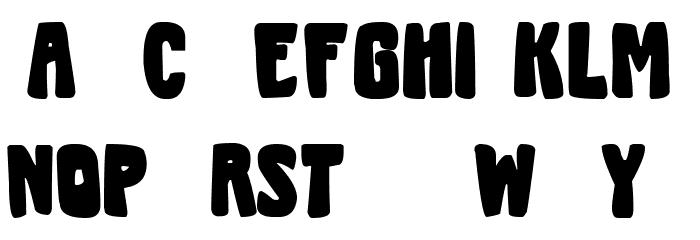
Smallfoot Font
This font features a playful and bold design with rounded edges and a slightly irregular shape, giving it a whimsical and friendly appearance. The characters are thick and substantial, making them highly visible and impactful. The uppercase and lowercase letters maintain a consistent style, with a slight variation in size and form that adds to the font's charm. The numbers and special characters are designed to match the overall playful aesthetic, making this font suitable for creative and informal projects.
A playful, bold font with rounded edges and a whimsical style.
- Proposed Projects: Ideal for children's books, playful branding, posters, and creative invitations.
- Overall Style: Playful